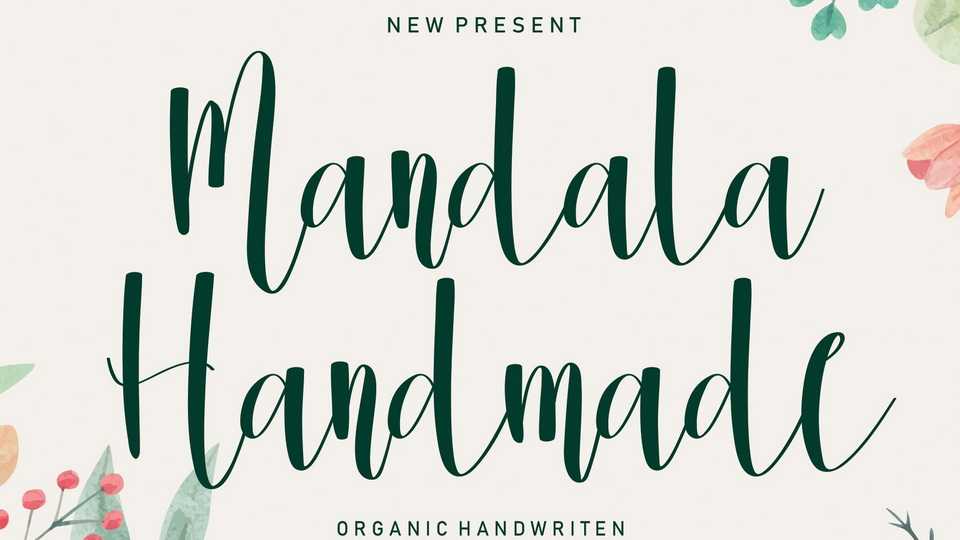
Download Mandala Handmade font, an organic handwritten typeface. Mandala Handmade font is perfect for wall displays, wedding invitations, social media post, logos, advertisements, product packaging, product designs, labels, photography, watermarks, invitations, and stationery.